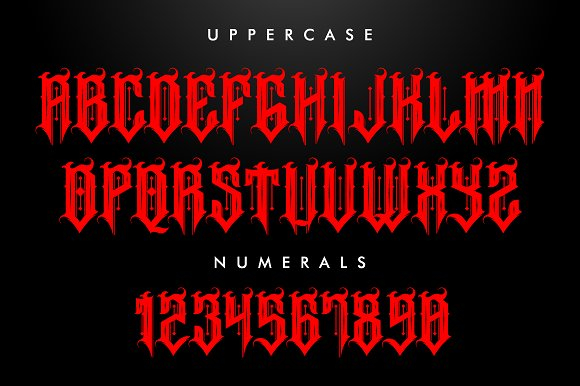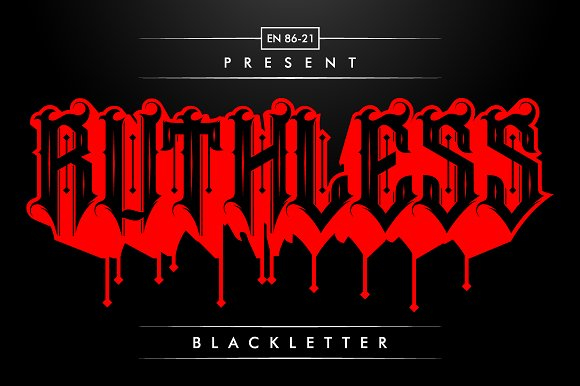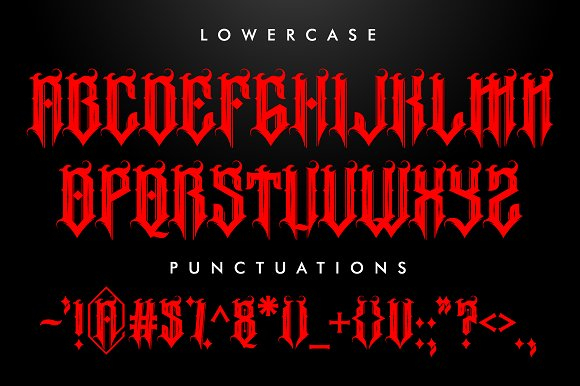
About Ruthless Font
The Ruthless is an unique blackletter font which was inspired by tattoo’s and old band logos. It has an overall scary feel and will add a striking touch to your designs.